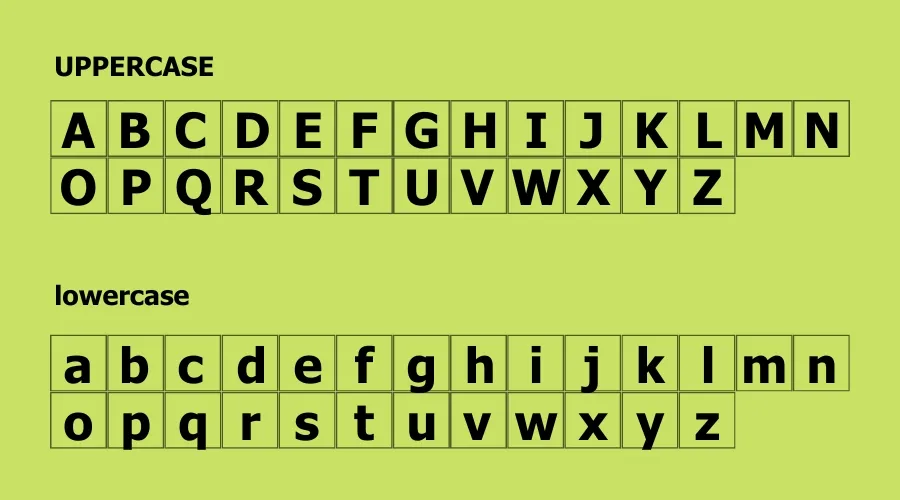
About Tr Tahoma Font
Matthew Carter created Tr Tahoma Font which is a sans serif typeface. Numerous dynamic and well-known typefaces created by Microsoft Corporation have had a significant influence on users and designers.
One of Microsoft’s inventions, the Tahoma font was created by a British designer many years back. Matthew Carter began his career at the beginning of the 1960s and accomplished great things in the world of design.
Tahoma typeface is available for free installation in many variations. Â In 1994, this sans-serif humanist categorization was first released publicly. Â The most well-known Tahoma font variations are Nina and Verdana.
For many years, this font served as the default font in many Microsoft programs. Currently, various Tahoma wine fonts including Wine Tahoma bold and Wine Tahoma Regular are developed to design metrics that are similar. With the support of the Tahoma font Generator, you may also create a variety of lovely text-based designs.
This font was utilized in numerous web applications. The use of a wide range of font styles can be seen on several platforms.
The Times New Roman typeface combined with the Tahoma font is without a doubt the best option if you’re looking to use an effective font while printing papers.
What is the Tr Tahoma font style?
Matthew Carter created Tr Tahoma Font which is a sans serif typeface. Numerous dynamic and well-known typefaces created by Microsoft Corporation have had a significant influence on users and designers.
Why Tr Tahoma is the best font?
The majority of email clients also support Tahoma as an alternative. It belongs to one of the most widely used sans serif font families for Windows. it is still clear and readable.
Is Tr Tahoma a professional font?
Tahoma, a sans-serif typeface has a more contemporary appearance. Microsoft utilized it for a number of its programs for a very long time. An excellent alternative that makes your CV elegant while yet looking professional is Tahoma.